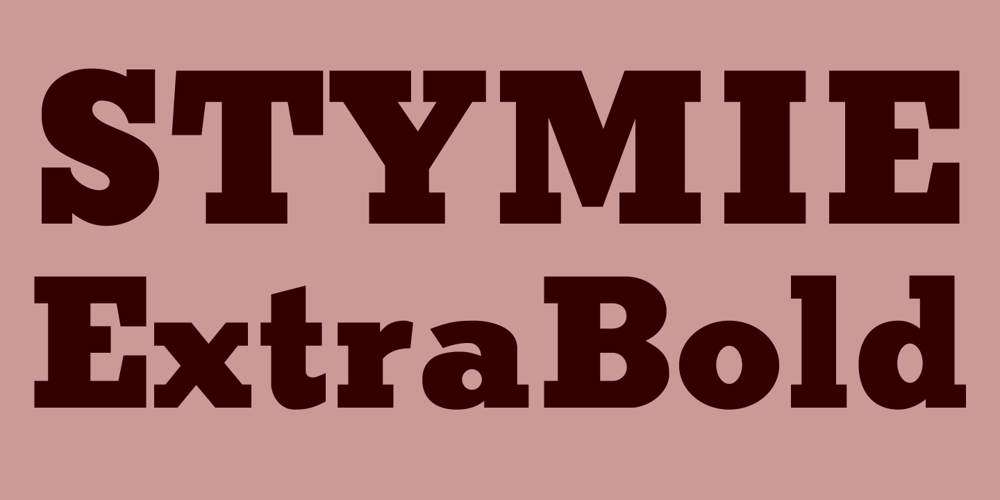
Stymie Extra Bold
Stymie Extra Bold font
Stymie Extra Bold Font Family was designed by Jordan Davies and published by Wooden Type Fonts. Stymie Extra Bold contains 1 styles and family package options. Extra Bold serif, ideal for large display.